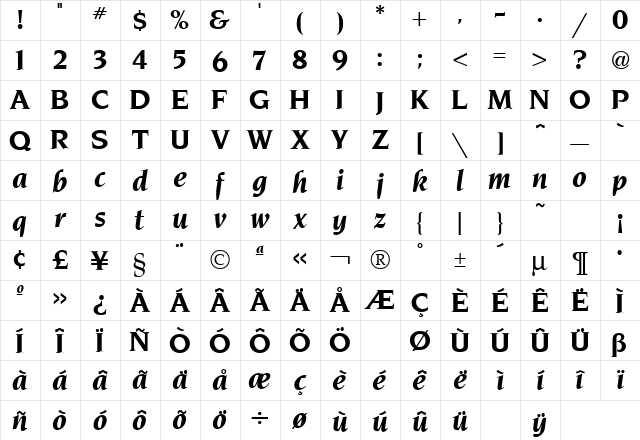
Novarese Bold Italic Font Preview
Novarese Bold Italic
Design Context for Novarese Typeface
Novarese takes a measured approach to typography — its balanced proportions and neutral character make it a reliable workhorse for both digital and print work. The slanted form adds forward momentum and visual energy. The heavy weight commands attention and anchors typographic hierarchies.
Pro Tip: Use Novarese for emphasis, pull quotes, and subheadings where its slanted energy can add rhythm to the layout.